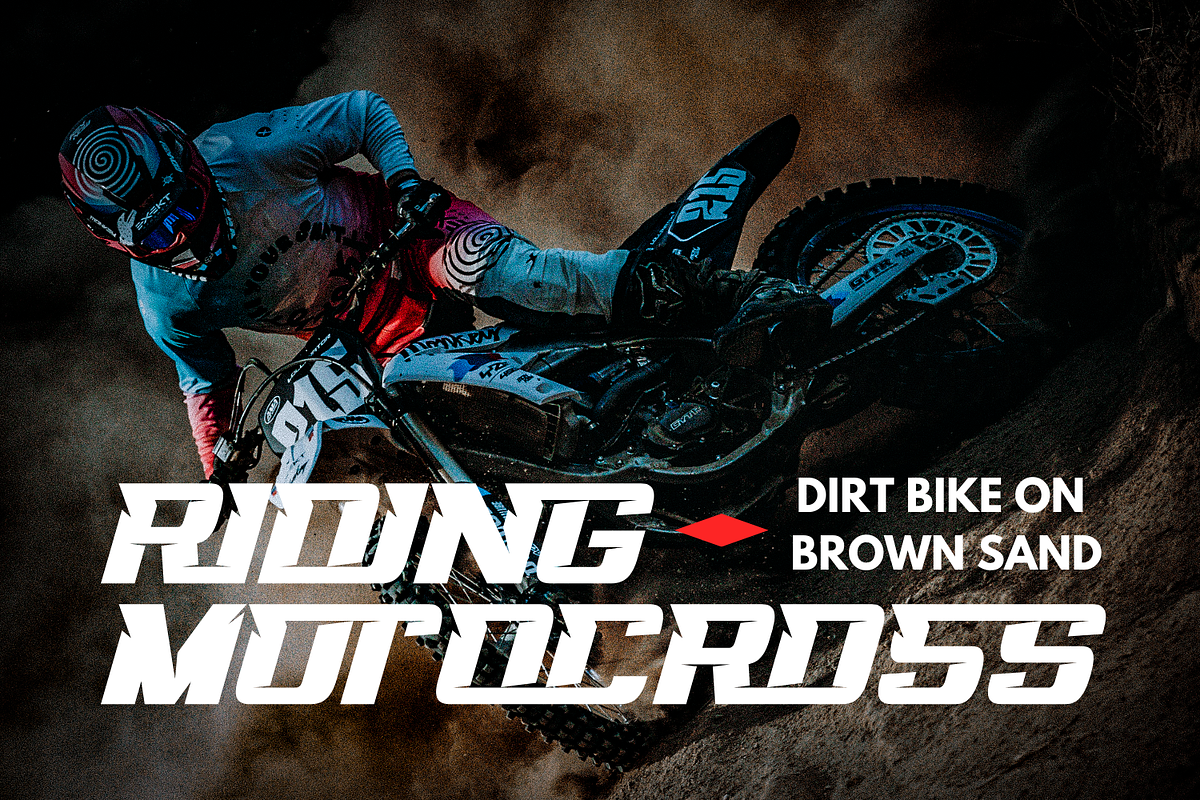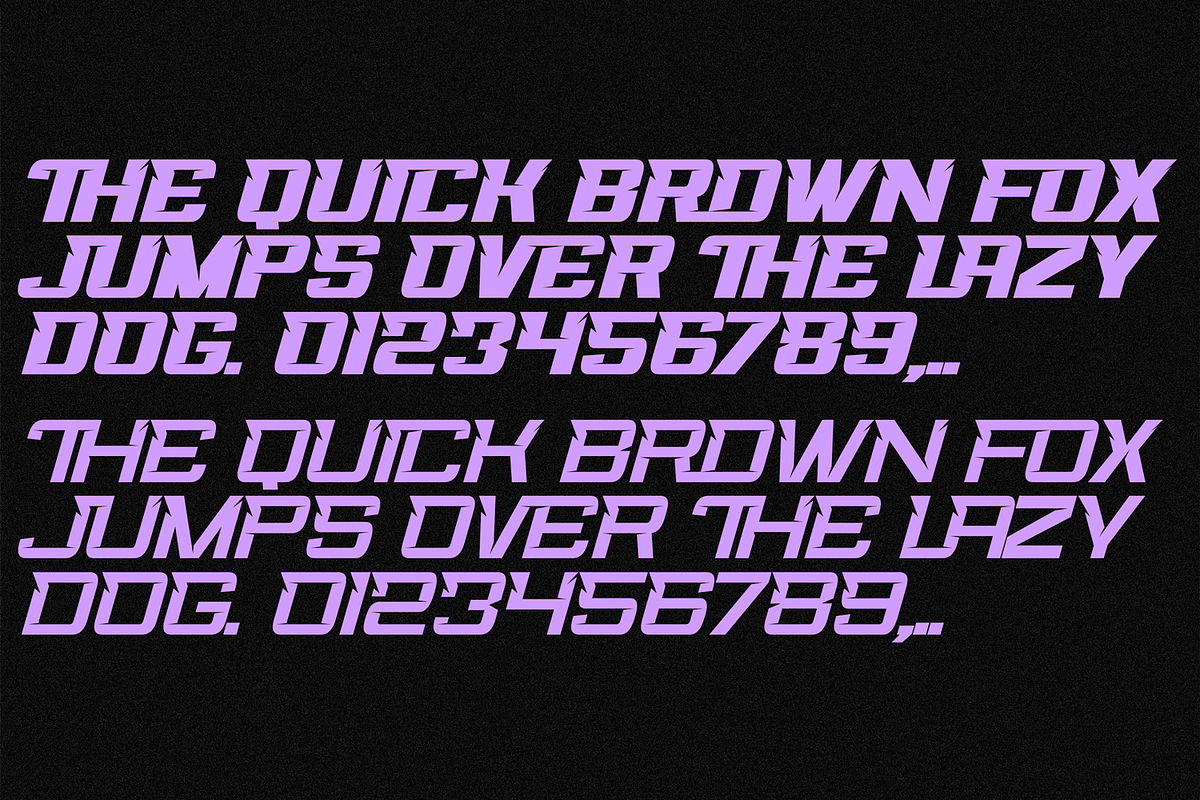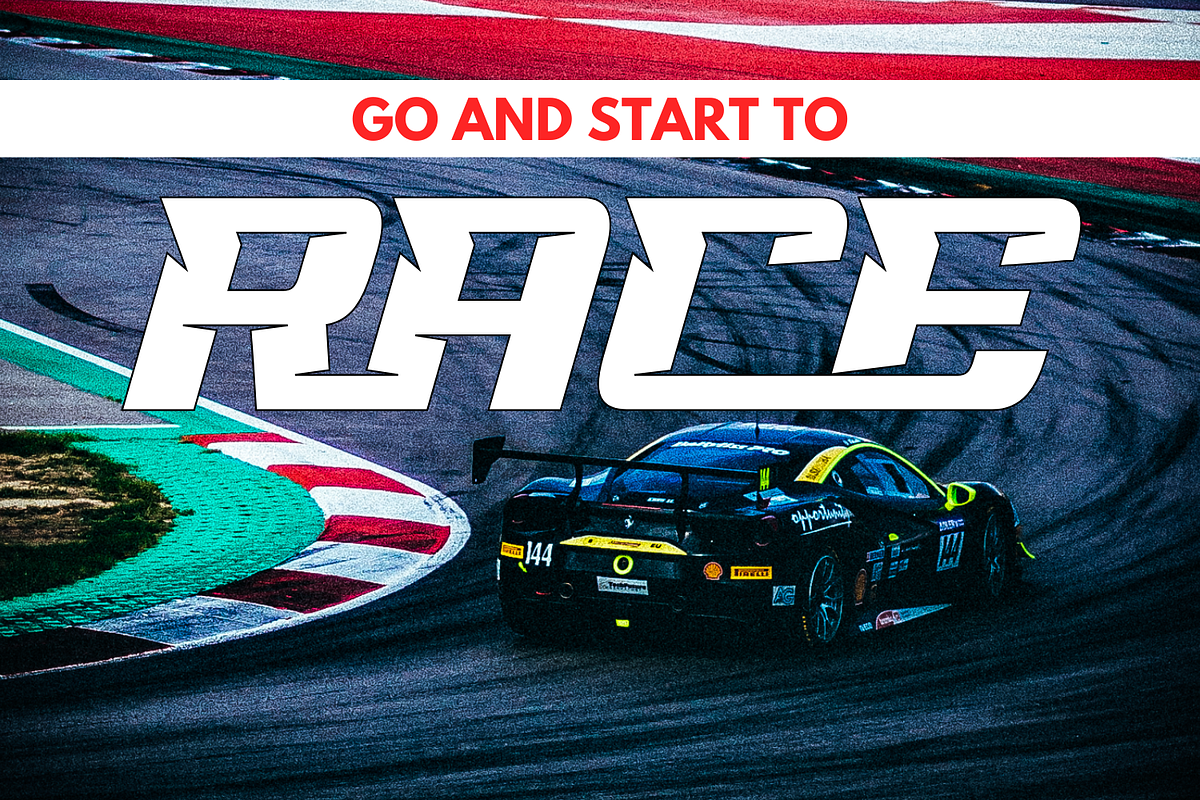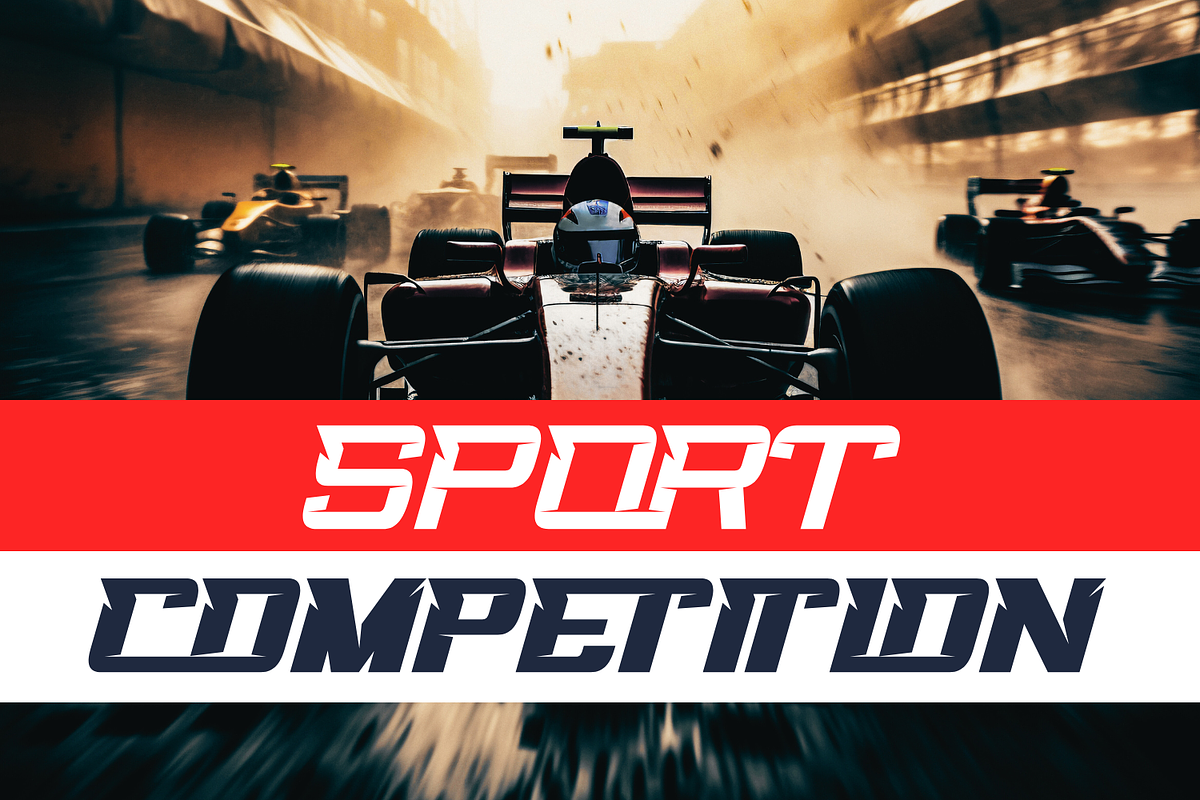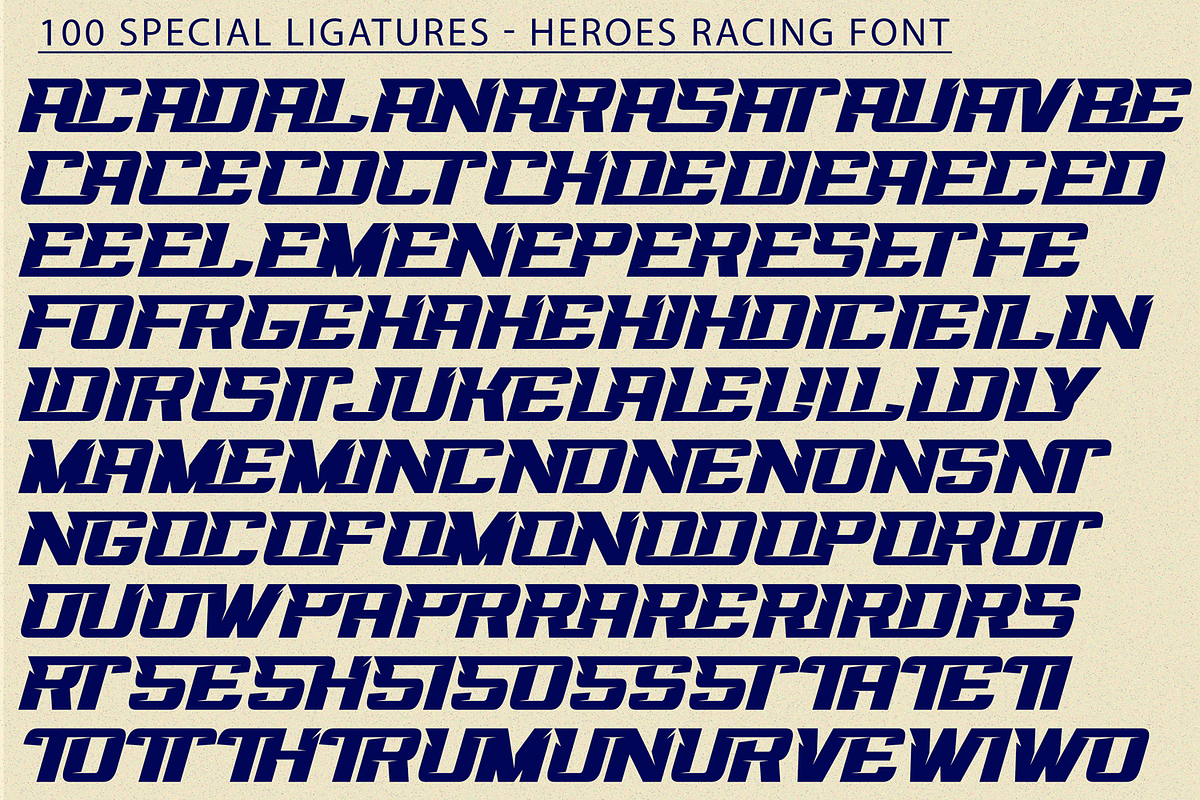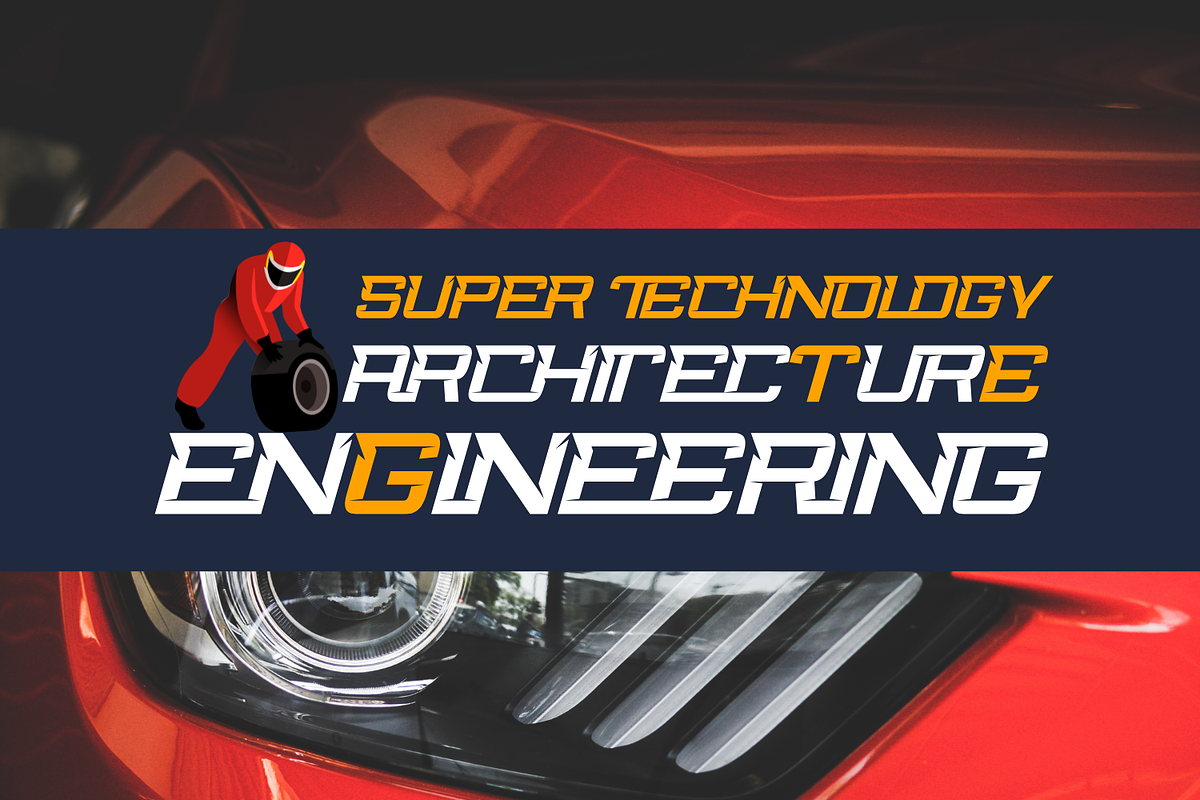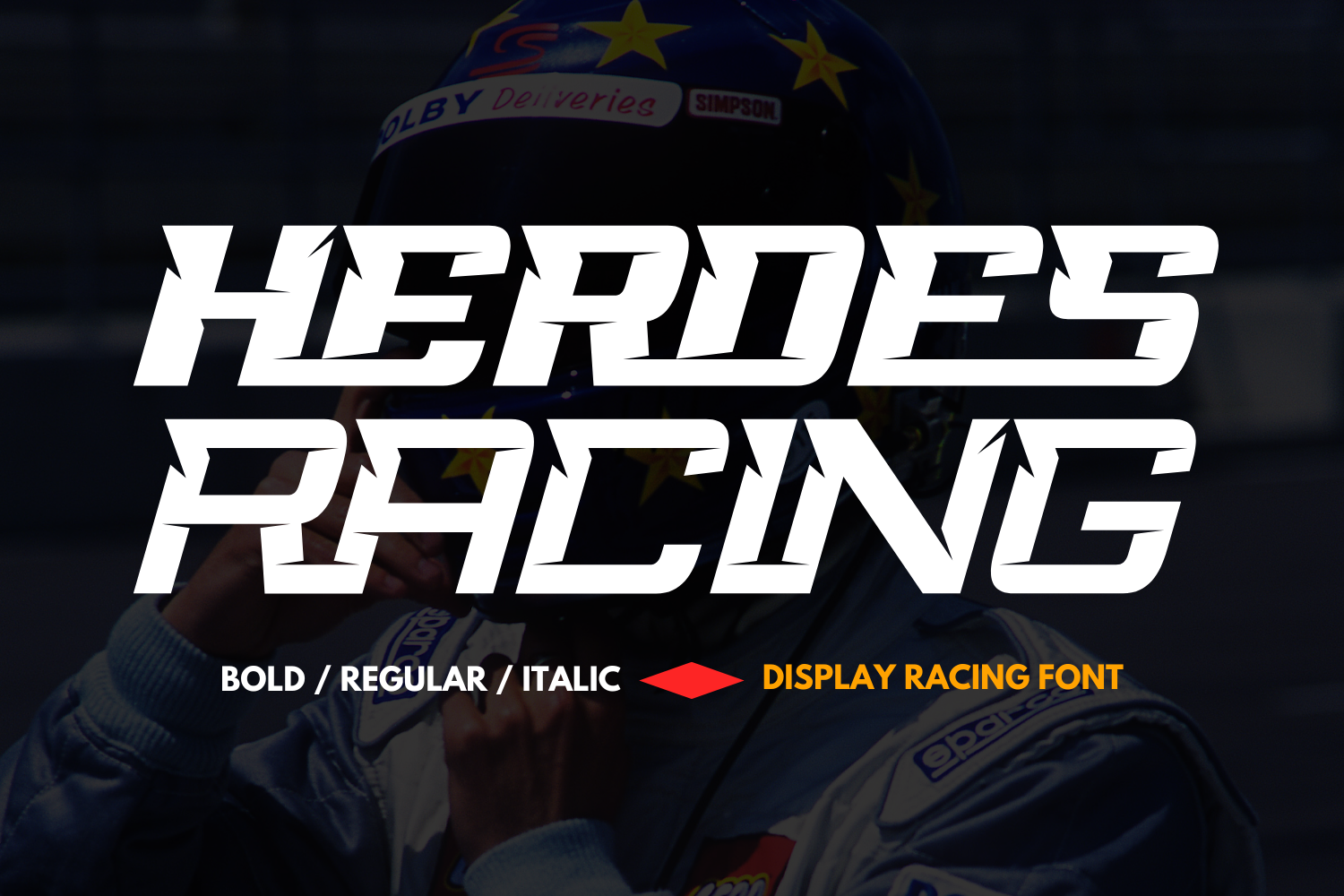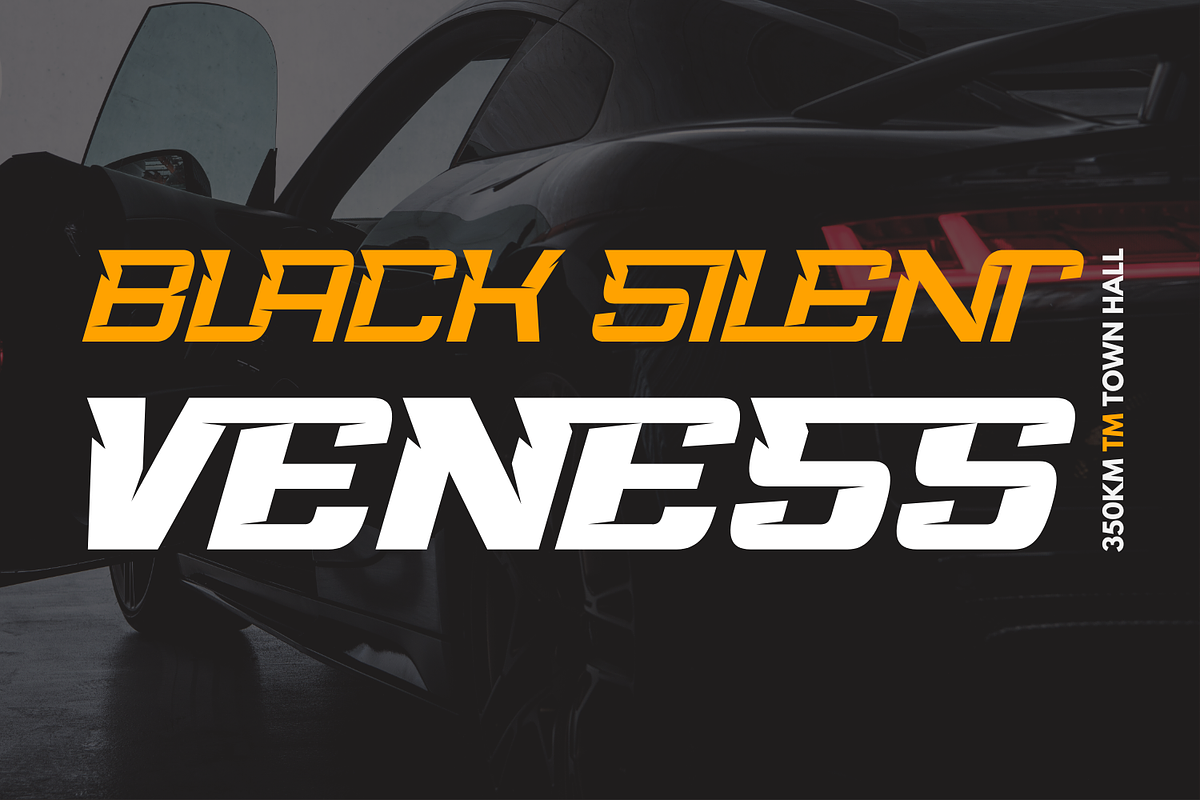
Heroes Racing Font
Heroes Racing Font consists of a racing style with sharp lines with a verified tilt angle that will emphasize a modern and sporty style. This font still looks very fast and powerful. Because with consistent bold and slanted shapes. It's bold, vibrant with sharp sans serifs and competitive appearance, therefore excellent to use for headers, logos, captions and posters, especially for the sports branding industry, but just as good for any other projects.
Heroes Racing was built with OpenType features and includes 100 ligatures, alternate, numbers, punctuation, and it also supports other languages.
AC AD AL AN AR AS AT AU AV BE CA CE CH CO CT DE DI EA EC ED EE EL EM EN EP ER ES ET FE FO FR GE HA HE HI HO IE IC IL IN IO IR IS IT JU KE LA LE LI LL LO LY MA ME MI NC ND NE NG NO NT NS OC OF OM ON OO OP OR OT OU OW PA PR RA RD RE RI RO RS RT SE SH SI SO SS ST TA TE TH TI TO TR TT UM UN UR VE WI WO
This font also included full set of:
- Uppercase letters
- Special Ligatures